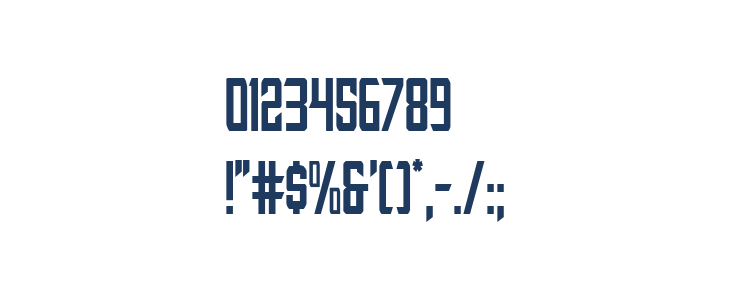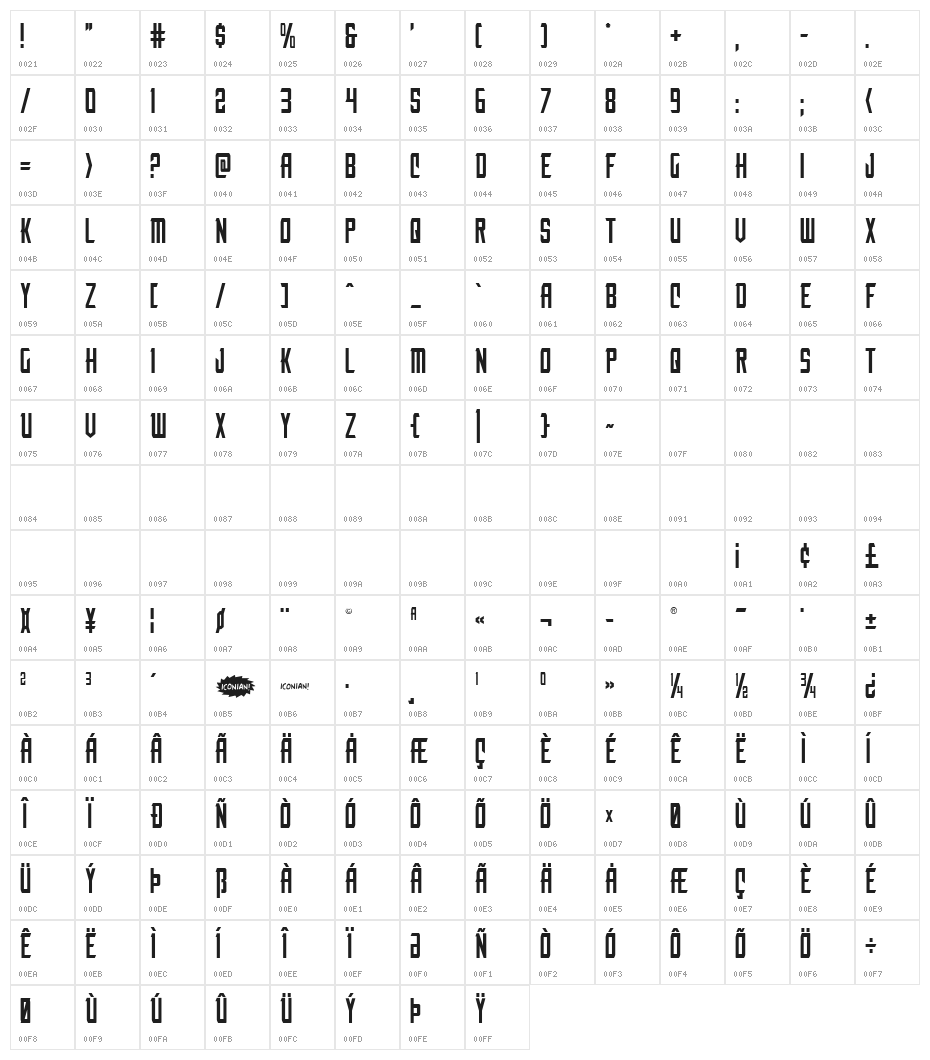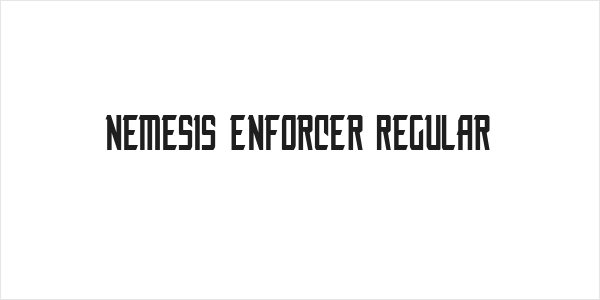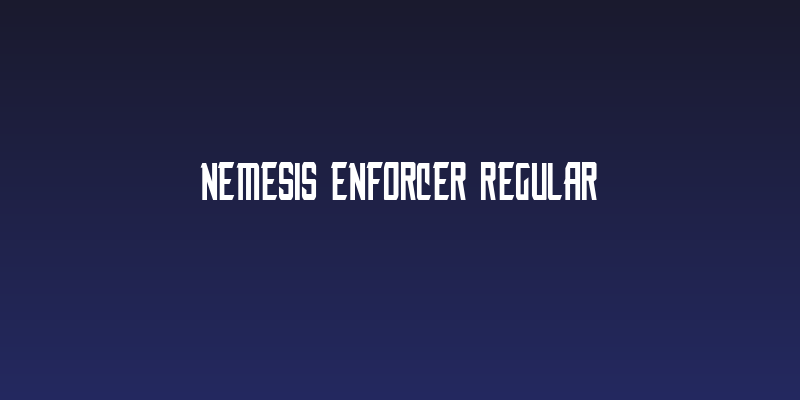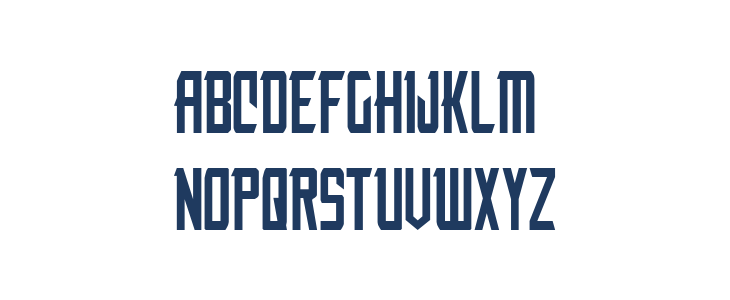
Nemesis Enforcer Regular Font
Nemesis Enforcer Regular Description
This font features a bold, geometric design with sharp angles and a strong presence. The uppercase letters are tall and narrow, giving a condensed appearance, while maintaining a consistent stroke width throughout. The characters exhibit a futuristic and industrial style, with unique cuts and edges that enhance its modern appeal. The numbers are equally bold and follow the same geometric pattern, ensuring uniformity across all characters. Special characters are distinct and maintain the font's overall aesthetic, making it suitable for impactful designs.